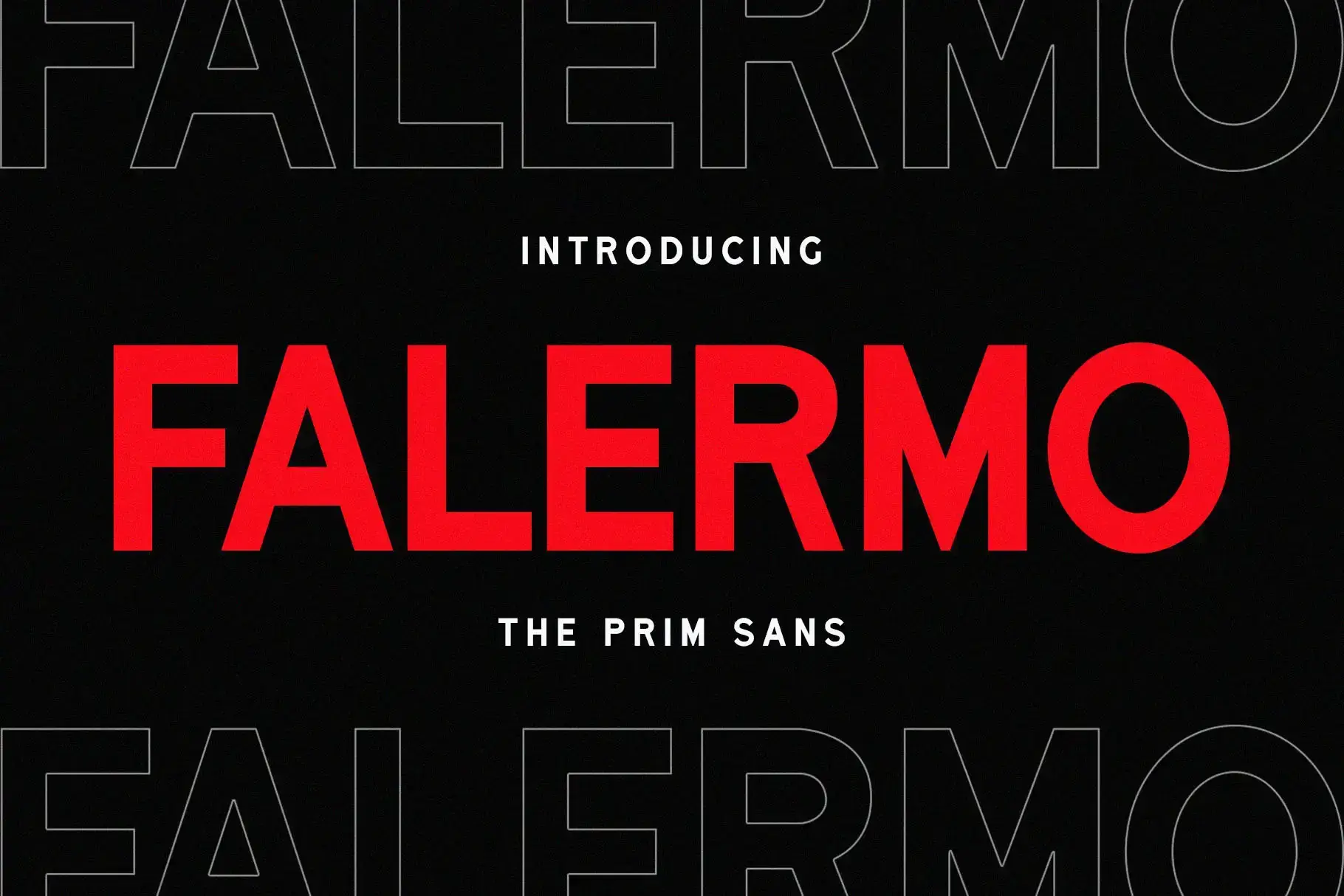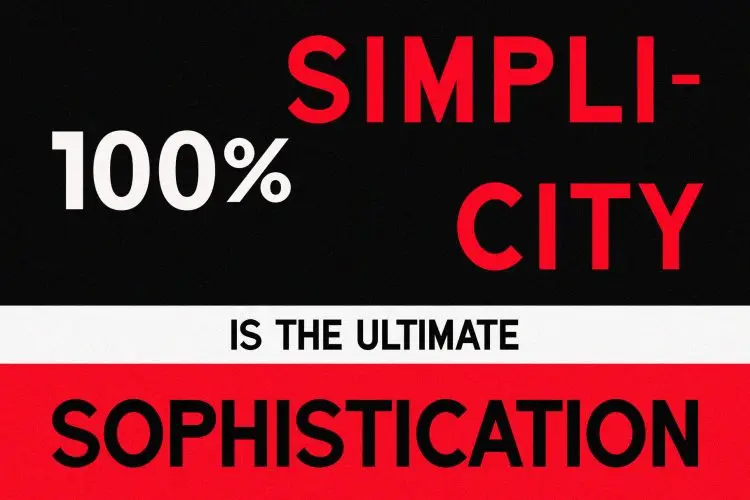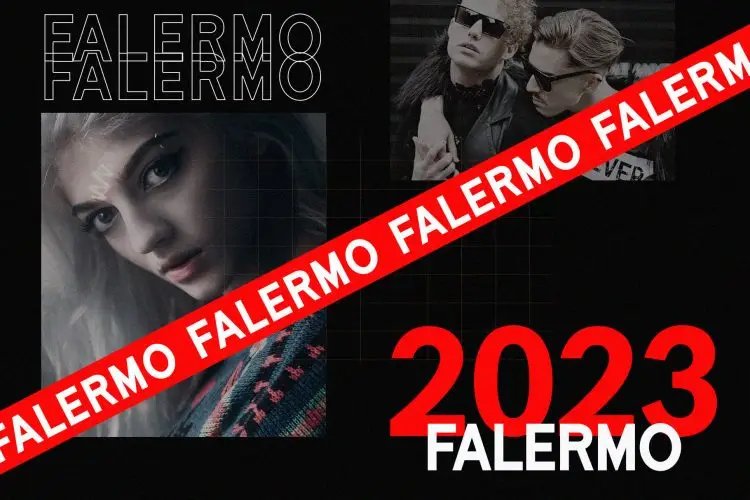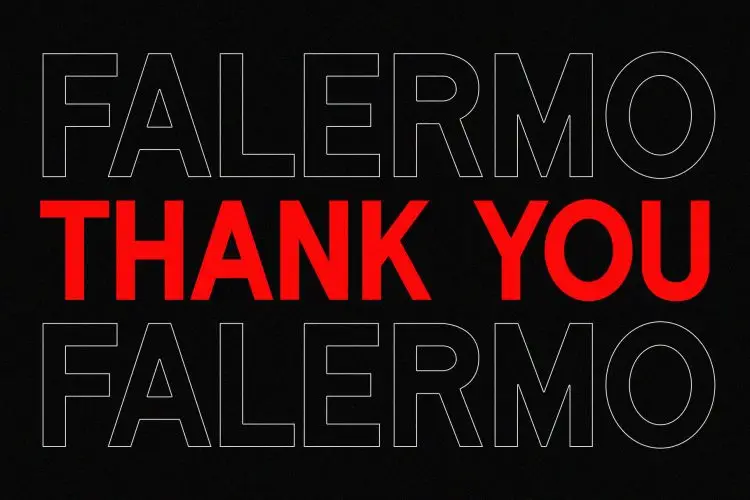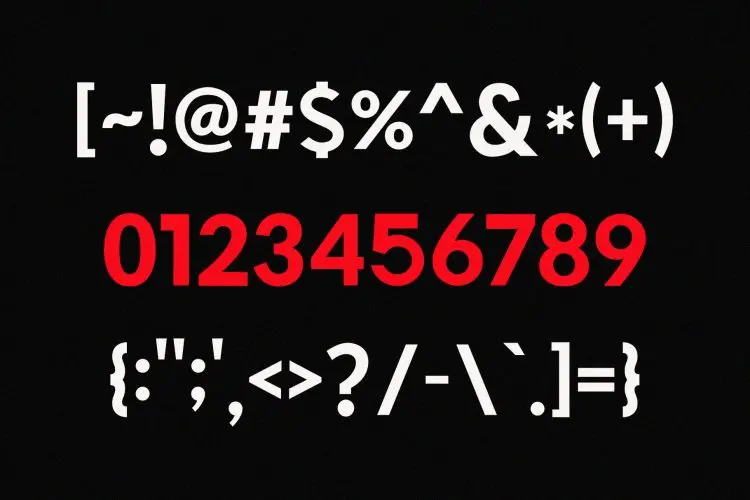
Falermo The Prim Sans
Falermo
Introducing Falermo, a sleek sans-serif font designed for modern projects seeking a touch of sophistication and elegance. With its clean lines, sharp angles, and a contemporary aesthetic, Falermo is the perfect choice for a wide variety of design applications. From websites to logos, magazines, and social media posts, this sleek sans-serif font maintains clarity and professionalism while exuding modern charm. Whether you’re looking to elevate your branding, create standout advertising materials, or craft elegant editorial layouts, Falermo offers the perfect balance of style and refinement.
Ideal for:
• Modern Designs
• Website Designs
• Advertising Campaigns
• Social Media Designs
• Presentations
• Editorial Layouts
• Ready for Creative Expression
• Immaculately Crafted Letters
Falermo is a sleek sans-serif font that brings sophistication and modernity to any project. Ideal for websites, advertising, and editorial layouts, it adds a refined touch to your designs.